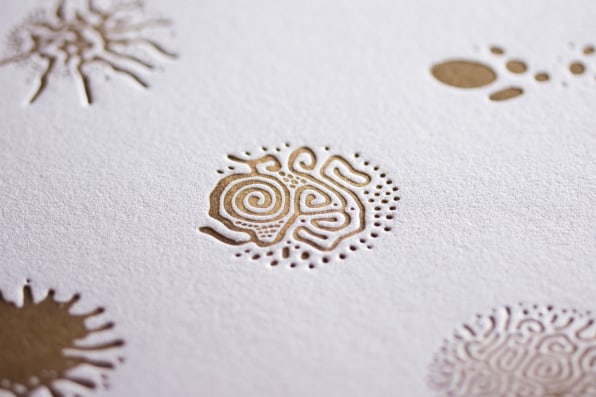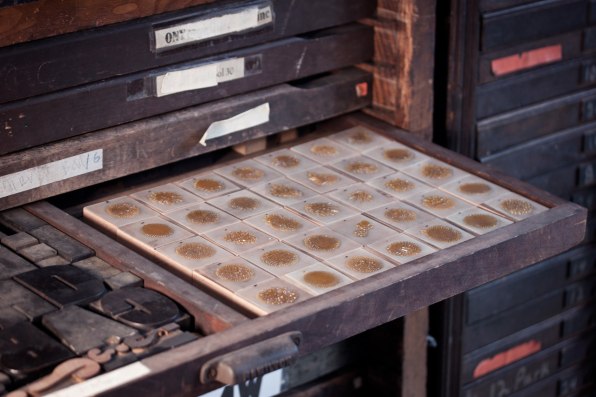
First invented by NASA in the 1960s, ferrofluid has been experiencing a kind of renaissance lately, being used in everything from high-tech lava lamps to designer alarm clocks. Now, designer Craig Ward and photographer Linden Gledhill are taking ferromagnetic fluid into the realm of typography, centrifugally spinning it to create weird Rorschach glyphs, available as both one-of-a-kind prints and a computer system font file.
Currently on Kickstarter, Fe₂O₃ Glyphs describes itself as both a transcendence and a subversion of what we commonly call a typeface. Using a little bit of ferrofluid mixed with ink and pressed between two glass plates, Craig and Gledhill were able to create unique patterns by spinning it across horizontal and vertical magnetic fields. As they did so, the fields distorted the ink into something close to a ferromagnetic snowflake: a unique pattern that Craig says calls to mind “ancient indigenous markings from science fiction.”
“[Linden] has been studying ferrofluid for a while,” Ward says by email. “He sent me some early images a little while back, and, as someone who works with typography and symbols on a daily basis, they immediately felt to me like some kind of a language system. . . . So I proposed the idea of creating a type system to him, and we went from there.” The whole idea of the project, Ward says, is to invert the type design process: replacing a static pixel grid with magnetic fields, for example, or trading concerted aesthetic decisions for a more generative design process.
Almost as a lark, the duo decided to put Fe₂O₃ Glyphs on Kickstarter as an OTF typeface and a series of letterpress prints. According to Ward, the two thought of the project as “niche, but surprisingly, they’ve already collected almost four times their initial crowdsourcing goal for the ferromagnetic typeface.
“I think people are interested for some of the same reasons we were,” Ward tells me. ” We found the symbols quite infectious, and we wanted to see more and more to see how elaborate, convoluted, and distorted they became.”
Coupled with a unique movable type set up that combines the 138 different glyphs into more possible configurations than stars in the known universe, and just as many unique prints, Ward calls Fe₂O₃ Glyphs “a kind of infinite art machine.” You